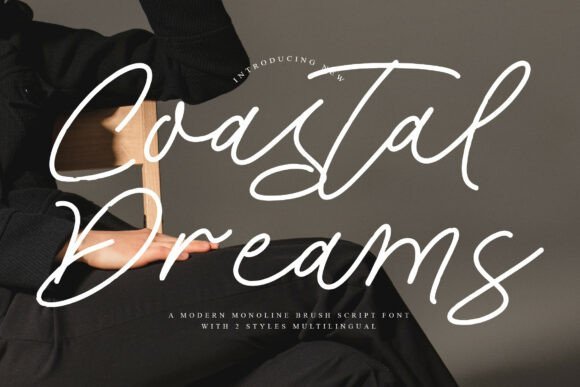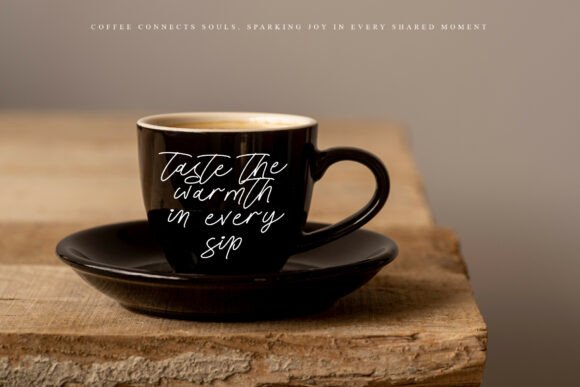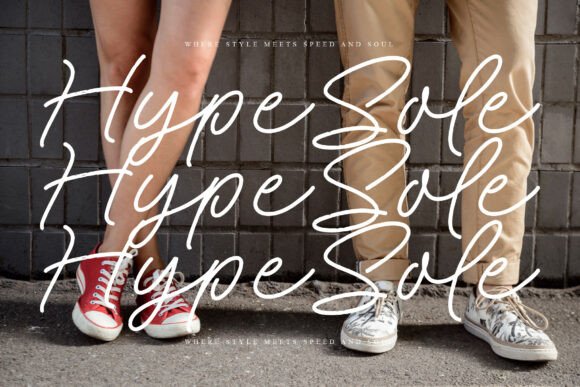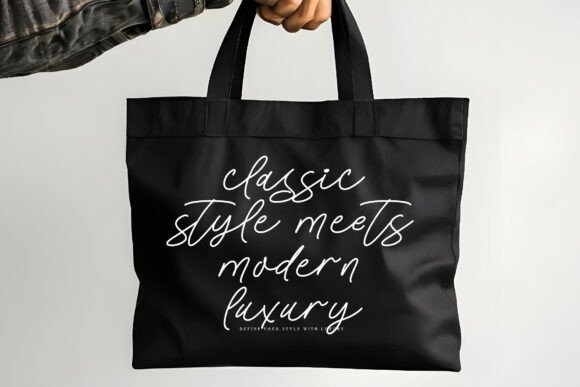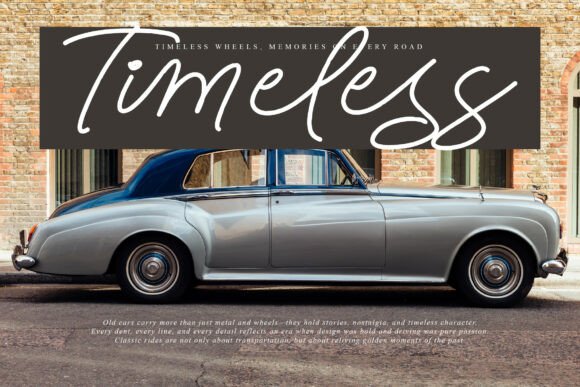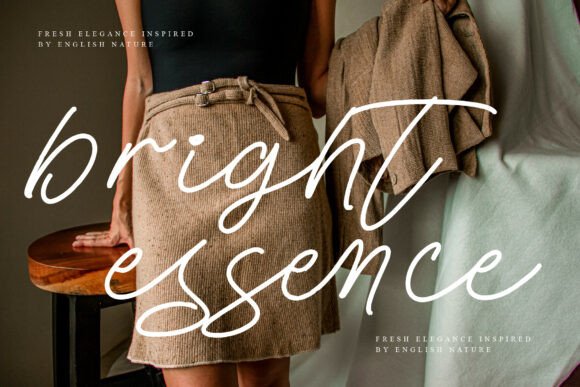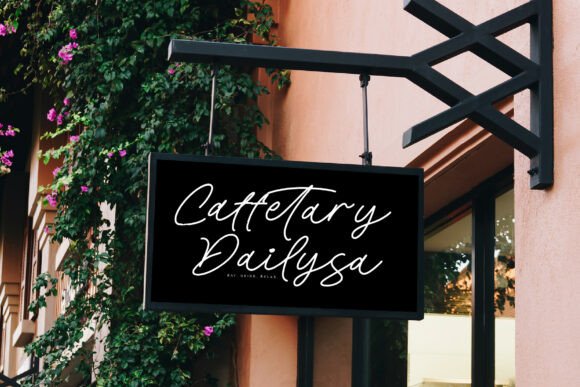
Where the Ocean Meets Design
Have you ever found yourself lost in a sea of design inspiration, searching for the perfect font to capture the essence of your brand? Maybe it was a beautiful sunset, a lazy beach day, or a charming coastal town that sparked the idea. Whatever the moment, it’s easy to get caught up in the magic of Coastal Dreams Font – a modern monoline brush script that embodies the effortless elegance of handwriting kissed by the ocean breeze.
Coastal Dreams Font is designed to bring a sense of calm sophistication to any project, balancing casual grace and modern refinement. Its smooth, organic strokes and natural rhythm make it an excellent choice for logos, quotes, or lifestyle content, while its delicate monoline structure gives it a clean, airy feel – perfect for minimalist layouts and contemporary aesthetics.
Coastal Dreams Font Key Features
- Font Family: Coastal Dreams – a unique, hand-drawn script font designed to evoke the feeling of seaside charm.
- Character Set: Includes 260+ glyphs, including uppercase and lowercase letters, numbers, punctuation, and special characters.
- Size: Available in 4 different font sizes: Regular (400), Bold (700), Light (300), and Extra Light (200).
- Resolution: Supports high-resolution displays, including Retina and 4K screens, with clear and crisp rendering.
- Unique Characteristics: Features a soft, flowing design with subtle texture and imperfections, giving it a natural, hand-written feel.
Coastal Dreams Font Review
I was excited to dive into the Coastal Dreams Font, hoping it would transport me to a serene beachside escape. ✨ The font’s organic, handwritten feel immediately caught my attention. The rounded edges and subtle texture evoke a sense of whimsy and playfulness.
- ✨ Whimsical and fun, perfect for beach-themed designs or summer projects.
- ✨ Beautifully styled uppercase and lowercase letters, great for creating a sense of balance and harmony.
- ✨ The font’s flexibility in terms of size and spacing makes it suitable for various design applications.
However, there are some limitations to consider: ⚠️ The font’s readability may be affected by its cursive nature, making it challenging for long blocks of text. Additionally, some letters may be difficult to distinguish, especially when used in small sizes.
- ⚠️ Limited legibility in cursive sections, may require careful text arrangement.
- ⚠️ Some letters may be hard to read in small sizes, potentially leading to design issues.
Overall, the Coastal Dreams Font is a beautiful addition to any designer’s toolkit. While it excels in creative, expressive applications, it may not be the best choice for complex, text-heavy projects. With a little finesse and attention to detail, this font can help bring your beach-inspired designs to life.
The Coastal Dreams font is perfect for:
- Beach-themed designs
- Summer-inspired graphics
- Travel brochures and advertisements
For best results, pair the Coastal Dreams font with pastel colors and beachy textures to create a cohesive and visually appealing design.
Alternatives to Coastal Dreams Font
Great Vibes is a beautiful, cursive font perfect for creating a relaxed and beachy vibe. It’s ideal for designing summer-themed posters, invitations, and social media graphics. Great Vibes is more elegant and refined compared to Coastal Dreams Font, making it suitable for high-end designs.
Alex Brush is a handwritten font that exudes a sense of adventure and playfulness. It’s perfect for creating bold and eye-catching designs, such as travel brochures, advertisements, and street art. Compared to Coastal Dreams Font, Alex Brush is more energetic and dynamic, making it suitable for designs that require a lot of movement and energy.
Carolyna Pro is a modern, elegant font that’s perfect for creating sophisticated and luxurious designs. It’s ideal for designing high-end branding materials, such as logos, business cards, and letterheads. Compared to Coastal Dreams Font, Carolyna Pro is more formal and polished, making it suitable for corporate and professional designs.
For optimal readability, we recommend using a font size between 14-20 points, paired with a line height of at least 1.2-1.5 times the font size. This will ensure your text remains clear and easy to read, even at smaller font sizes.